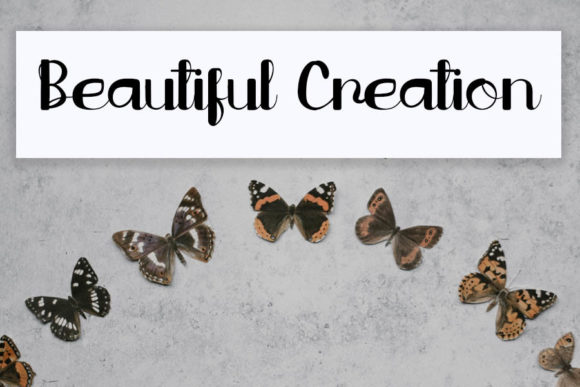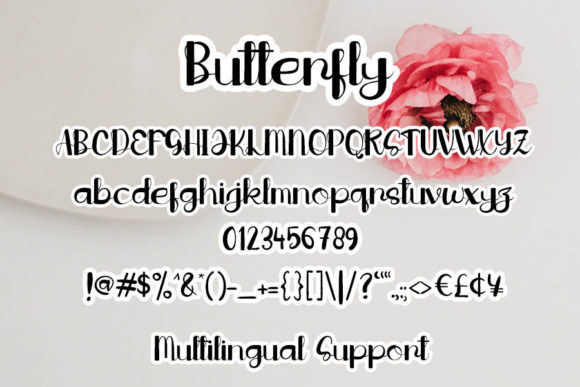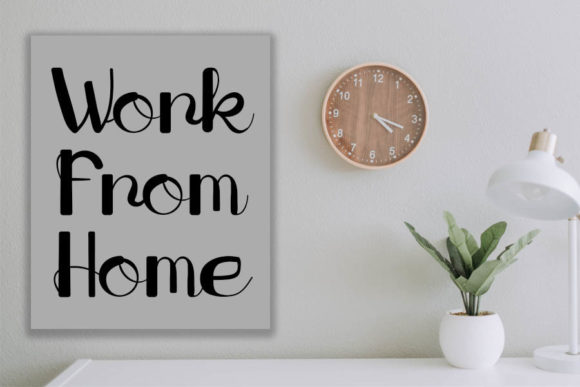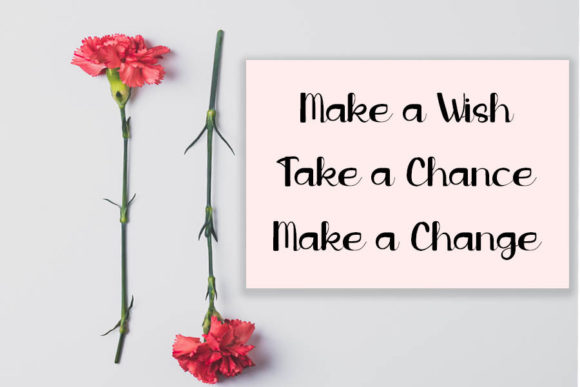
The Magic of Butterfly Font: A Designer’s New Best Friend
I’ll never forget the moment I stumbled upon the Butterfly font. I was working on a project for a client who wanted a whimsical, handcrafted feel, but I was struggling to find the perfect font to bring their vision to life. That’s when I discovered Butterfly – an incredibly unique and beautiful handwritten font that instantly captured my heart. Masterfully designed to become a true favorite, this font has the potential to bring each of your creative ideas to the highest level!
So, what makes Butterfly font so special? Here are a few things that I absolutely adore:
• ✨ Unique and beautiful handwritten style that’s perfect for creative projects
• 🌈 Wide range of applications, from crafting and DIY projects to professional design work
• 💫 Exquisite attention to detail, with subtle nuances that make it feel handcrafted
Of course, no font is perfect, and Butterfly has a few minor quirks to keep in mind:
• 🤔 Some users may find the font a tad too ornate for very short texts or headings
• ⚠️ Limited support for non-English characters (but this is being worked on!)
Butterfly font was designed by a team of typographers who wanted to create a unique, handcrafted font that would inspire creativity and bring joy to designers and crafters alike. With its intricate details and flowing lines, Butterfly font is the perfect choice for anyone looking to add a touch of elegance and whimsy to their projects.
Is Butterfly font suitable for body text? While Butterfly font is highly legible, it’s best suited for headings, titles, and short paragraphs. For longer body text, you may want to choose a more traditional font.